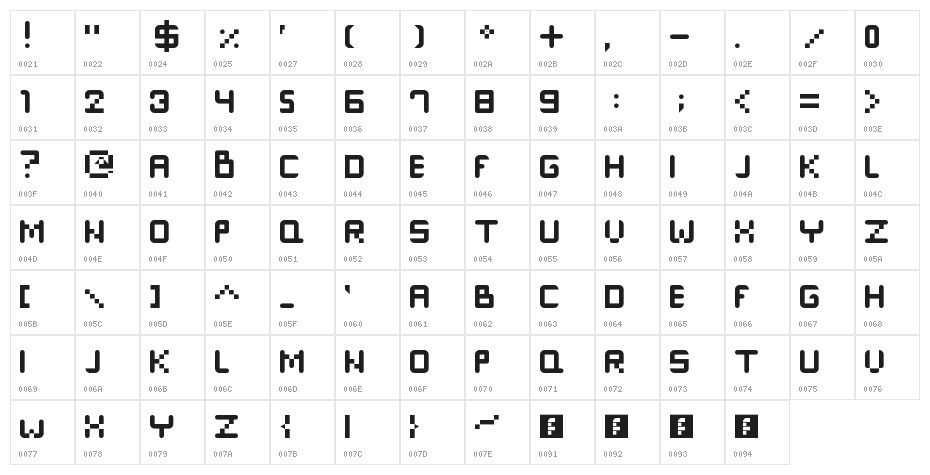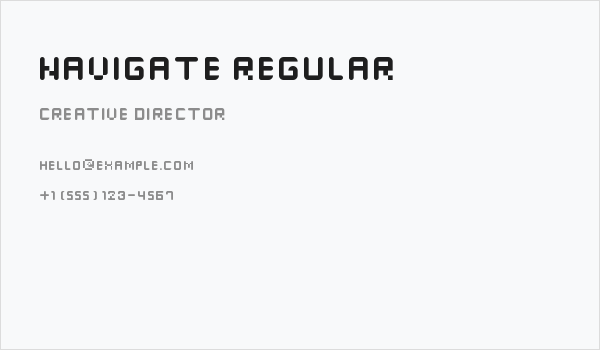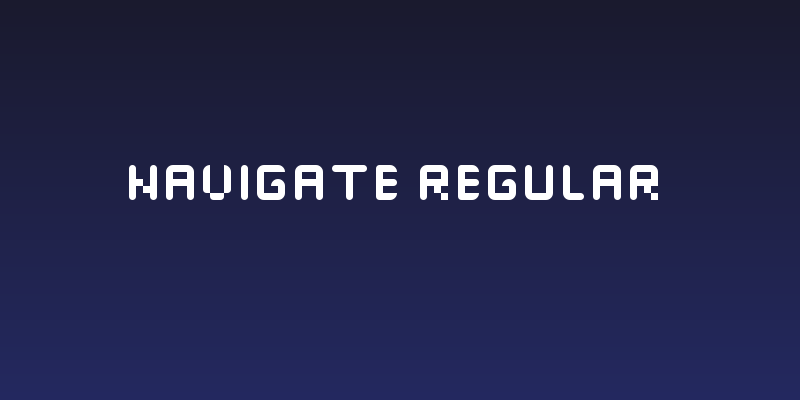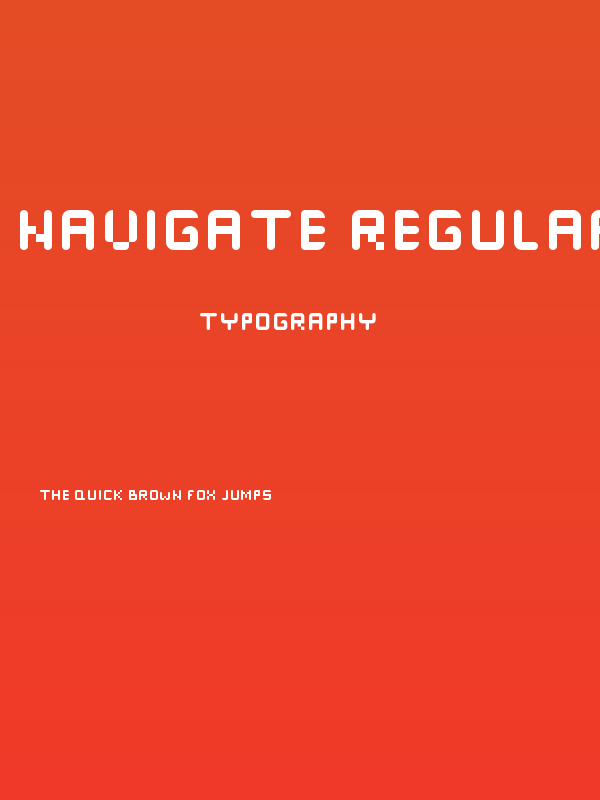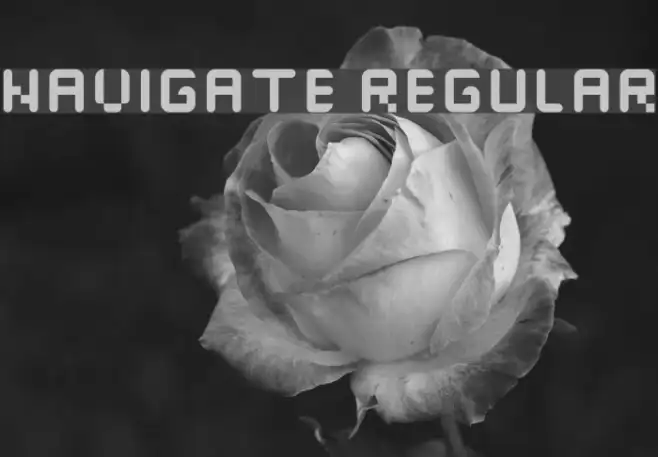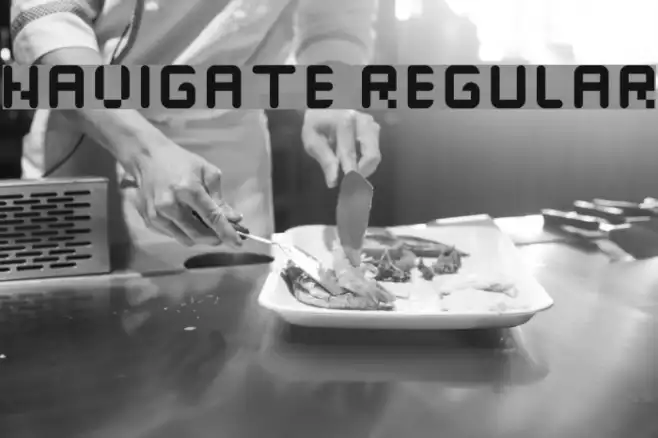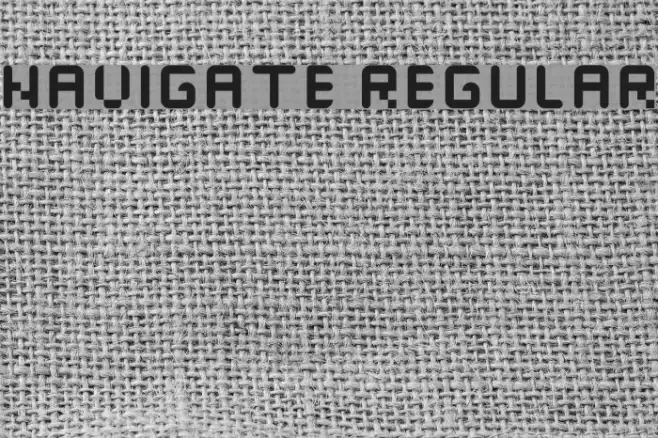
navigate Regular Font
navigate Regular Description
This font features a modern, geometric design with a strong emphasis on clean lines and rounded edges. The characters are uniformly structured, creating a cohesive and balanced appearance. The uppercase and lowercase letters maintain a consistent height, contributing to a uniform look across different text sizes. The numerals are bold and easily distinguishable, making them suitable for various applications. Special characters are designed with the same geometric precision, ensuring they blend seamlessly with the rest of the font. The overall style is futuristic and minimalistic, making it ideal for digital interfaces and contemporary branding.
NAVIGATE-REGULAR UPPERCASE
NAVIGATE-REGULAR LOWERCASE
NAVIGATE-REGULAR OTHER CHARS